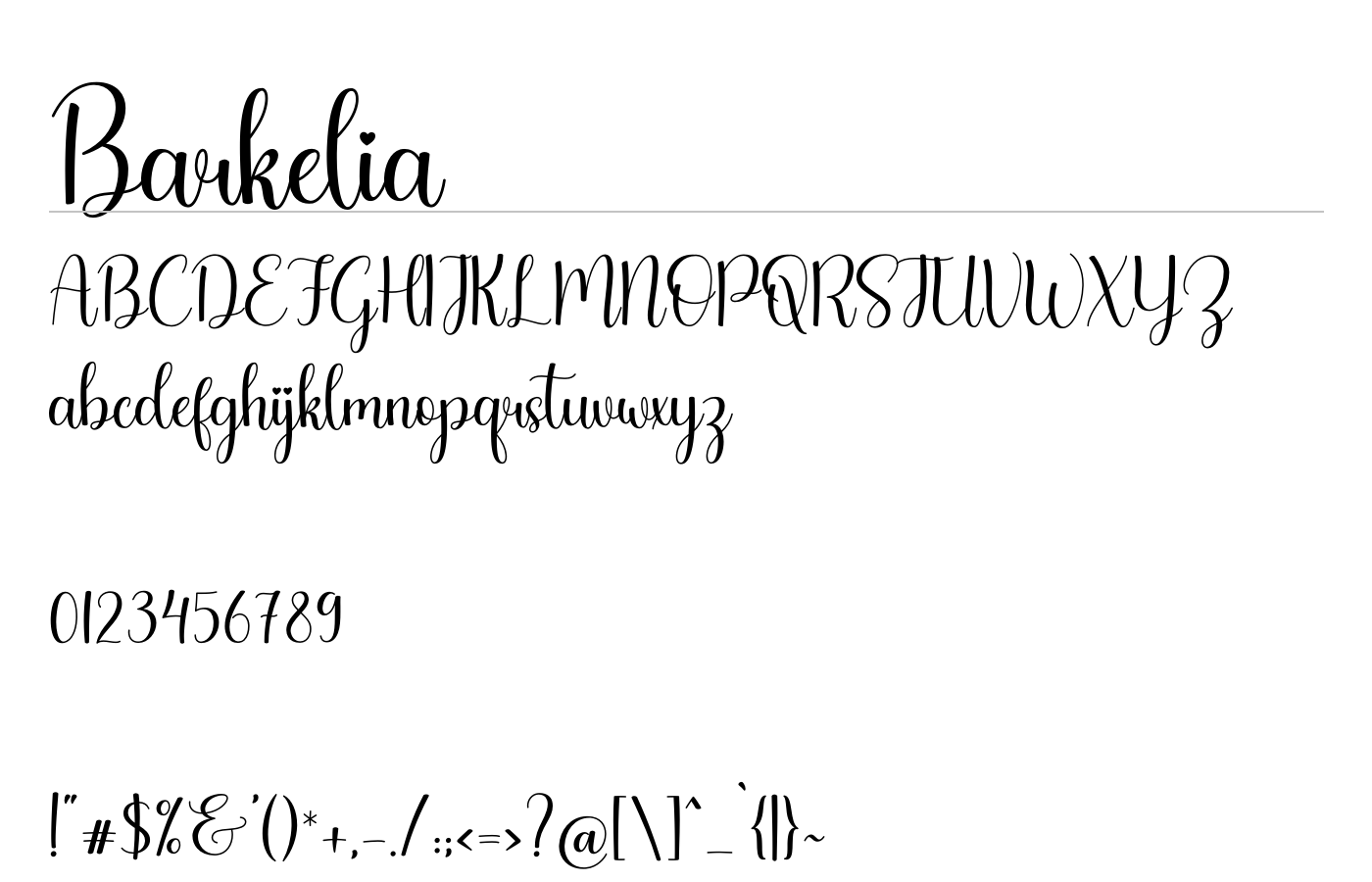
Barkelia is a charming script font with a delicate, handwritten feel that features elegant, flowing letterforms and subtle decorative touches like heart shapes. Its slender strokes and playful curves give it a romantic and whimsical personality, making it perfect for invitations, greeting cards, and branding that seeks a personal, warm touch. This font works beautifully in designs that want to convey friendliness and creativity with a stylish, feminine flair.
Barkelia Font
About Barkelia Font
| Font family | Barkelia Font |
| Designer | Typesthetic Studio - Hamzah Muhamad Ihsan - Jakarta (INA) |